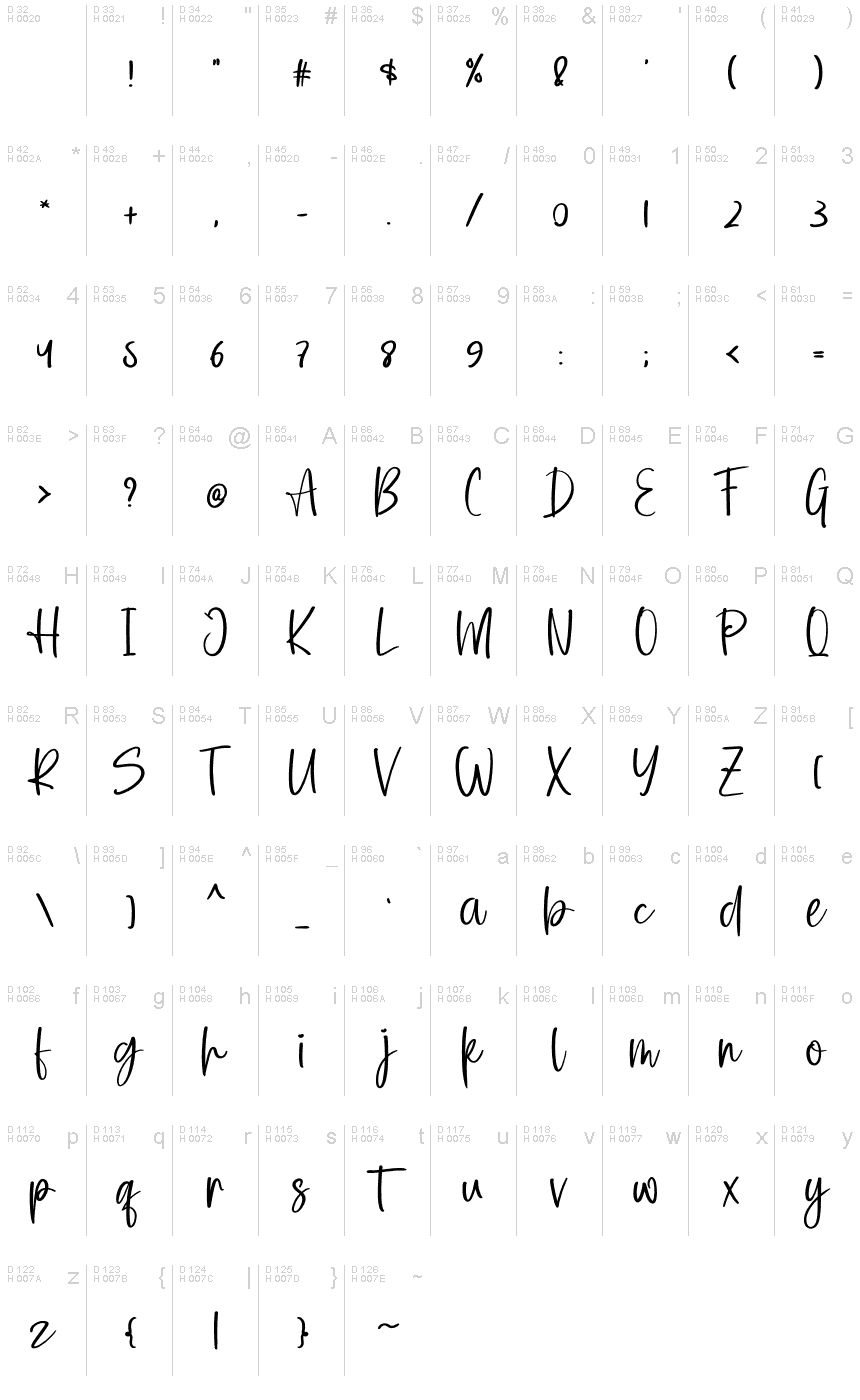
Mickey
Mickey, a delightful handwritten font designed by Abil Shidiq A, captures the essence of personal touch and elegance with its signature style. Its semi-light weight adds a gentle sophistication to any project that requires a touch of finesse.
The semi-condensed width of Mickey allows for efficient use of space while maintaining legibility. Ideal for wedding invitations, branding materials, or even personal blogs, this font effortlessly adds an air of charm and grace to your designs. Let Mickey be the perfect companion for your next creative endeavor!